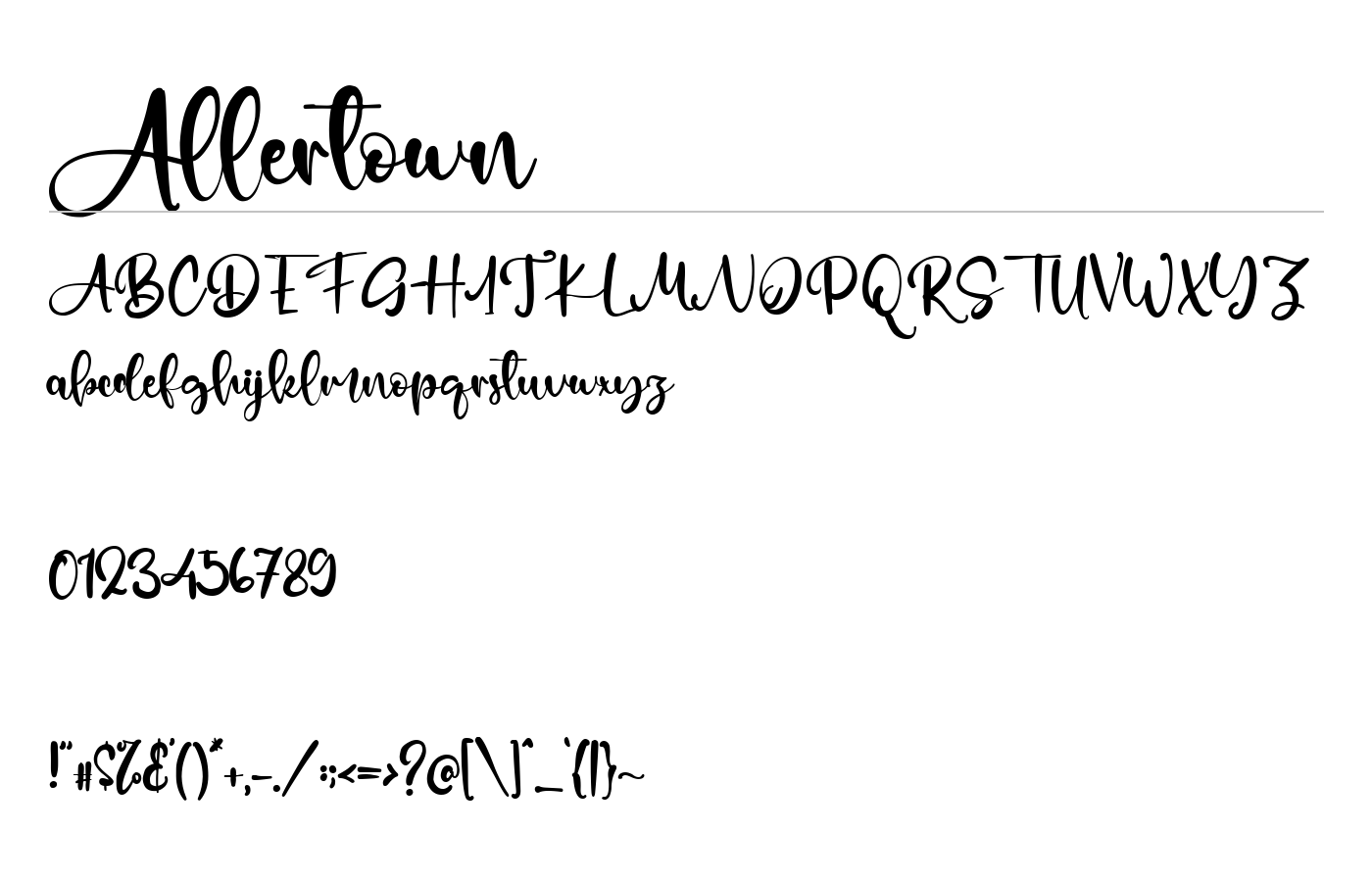
Allertown is a playful and elegant script font with smooth, flowing strokes that give it a hand-lettered feel. Featuring a mix of delicate thin lines and moderate weight, it is well-suited for creative branding, invitations, and decorative headlines where a friendly yet refined style is desired. This font adds a personal, artistic touch perfect for fashion, lifestyle, and boutique designs.
Allertown Font
About Allertown Font
| Font family | Allertown Font |